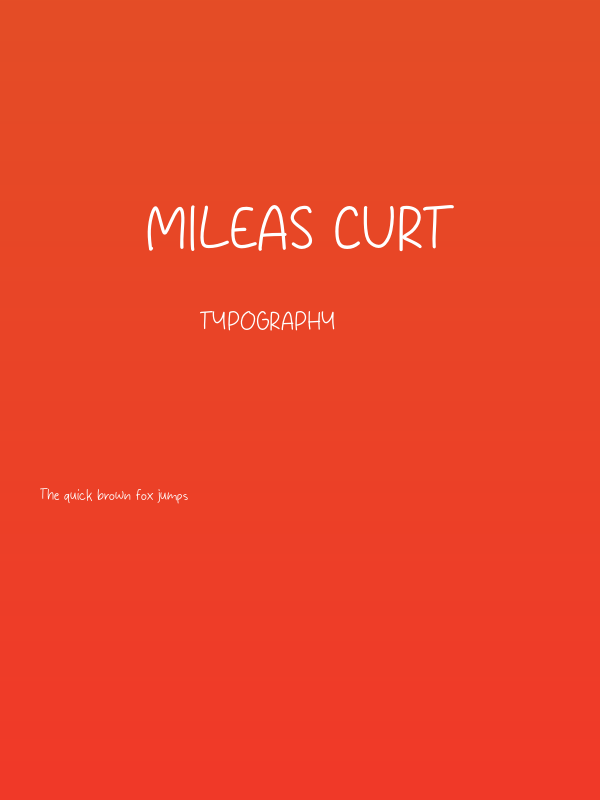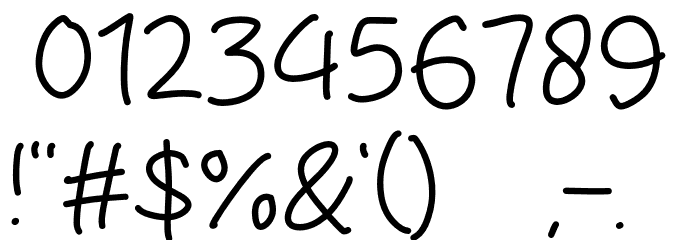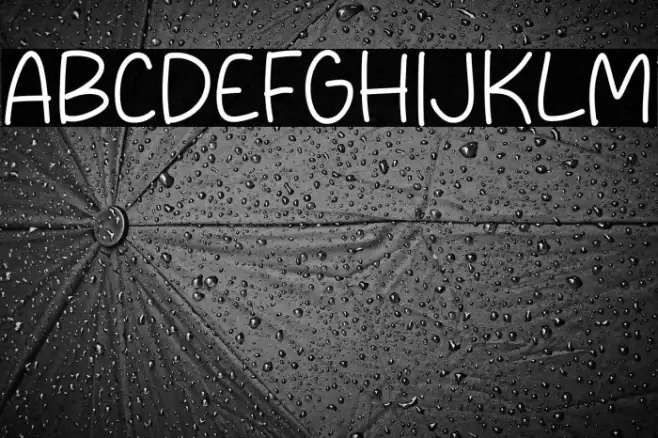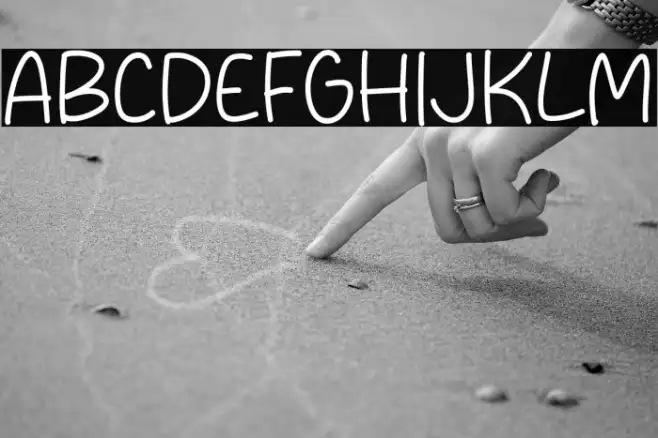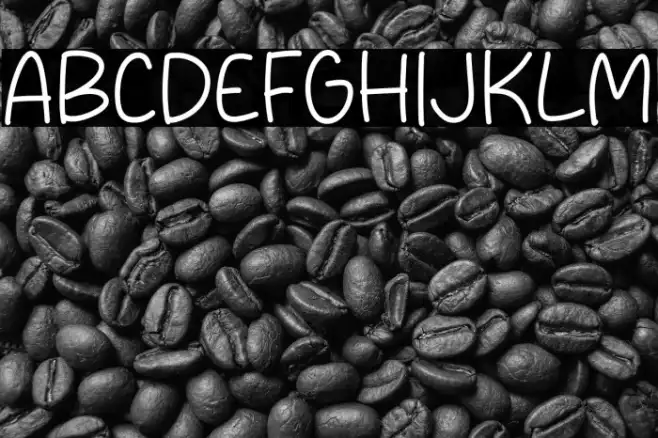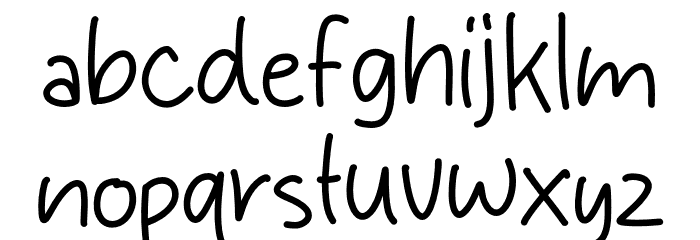
Mileas Curt Font
Mileas Curt Description
This font exhibits a playful and casual handwritten style, characterized by its smooth, rounded edges and slightly irregular letterforms. The uppercase and lowercase letters maintain a consistent flow, giving it a friendly and approachable appearance. The numerals and special characters follow the same informal aesthetic, making it suitable for projects that require a personal touch. The overall design is clean, with a medium stroke weight that ensures readability while retaining its whimsical charm.
| Overall Style | Casual |
| Use Case | Logos, Headlines, Informal Text |
| Proposed Projects | Ideal for greeting cards, children's books, casual branding, and social media graphics. |